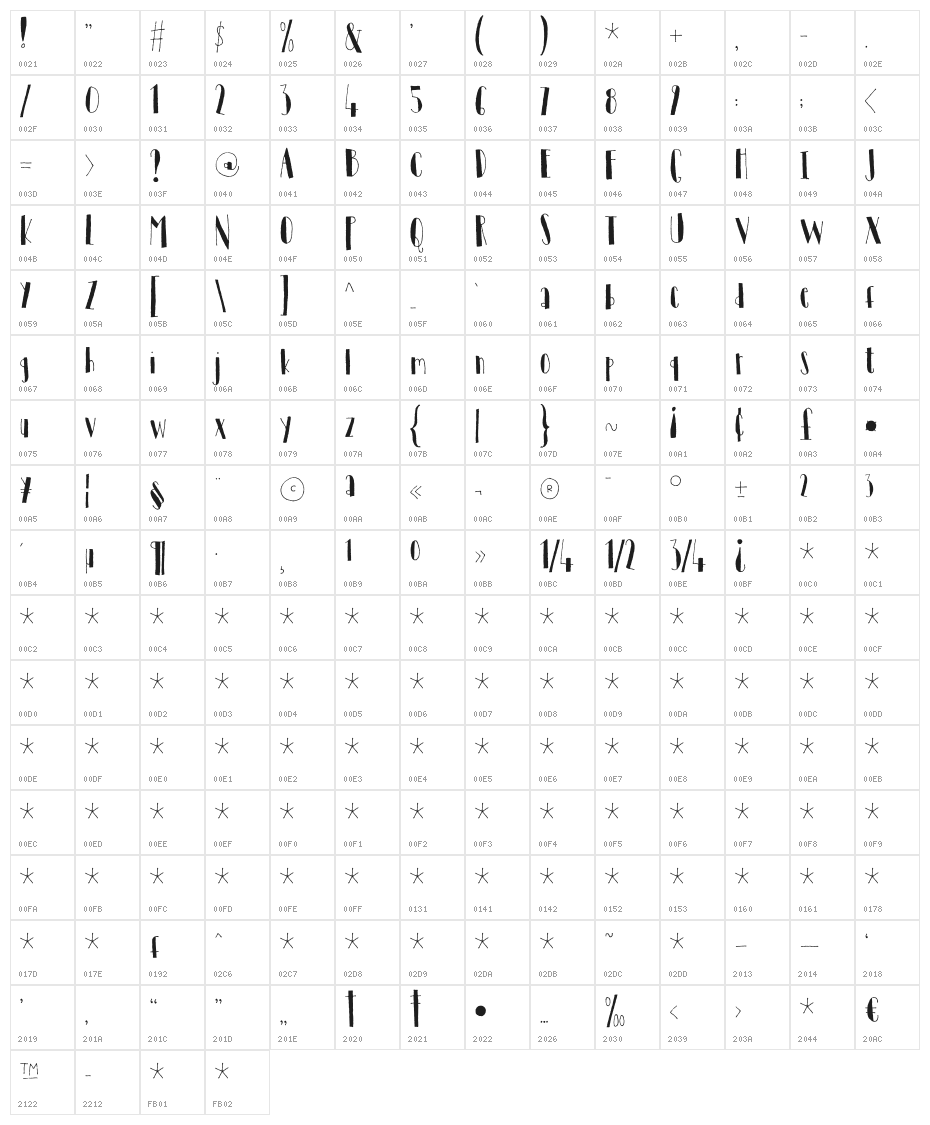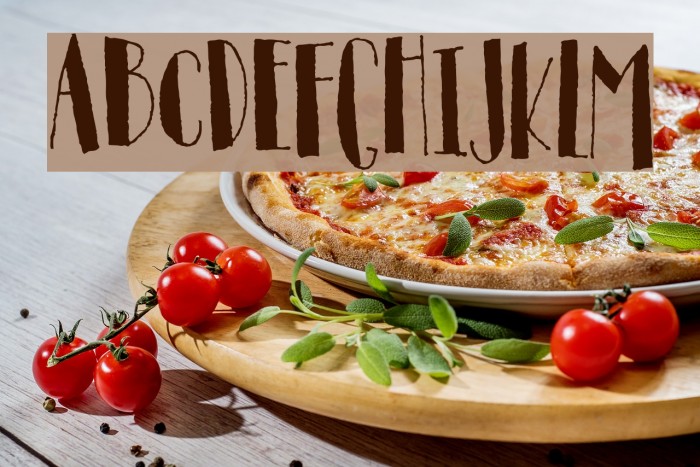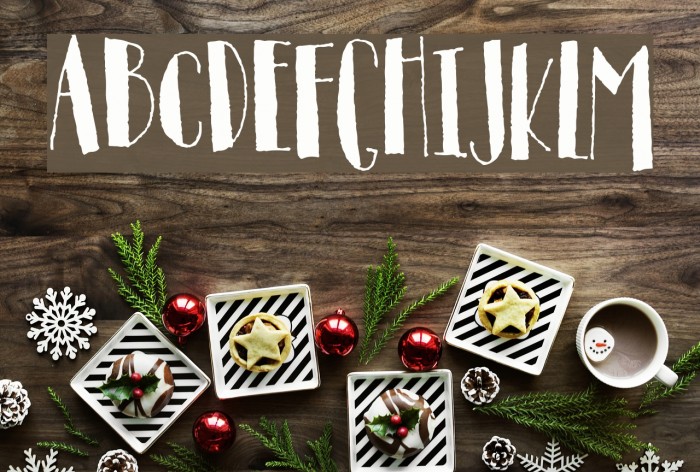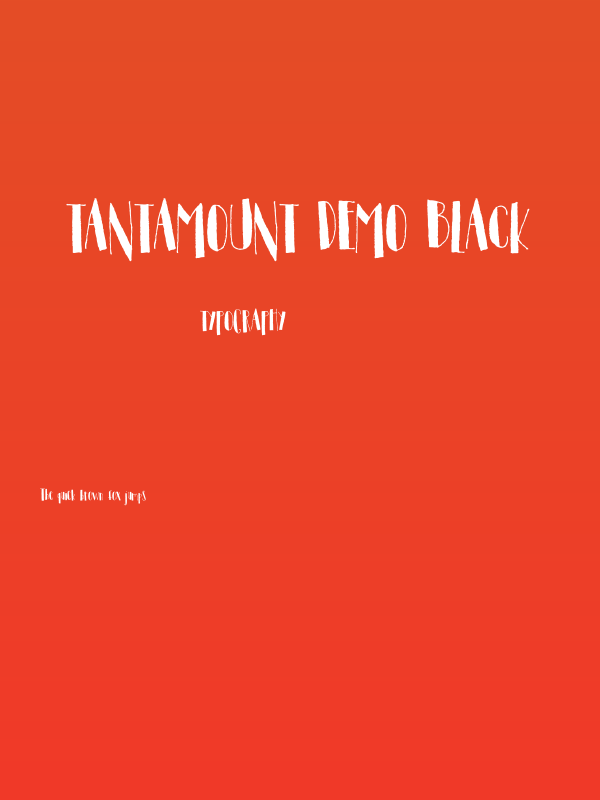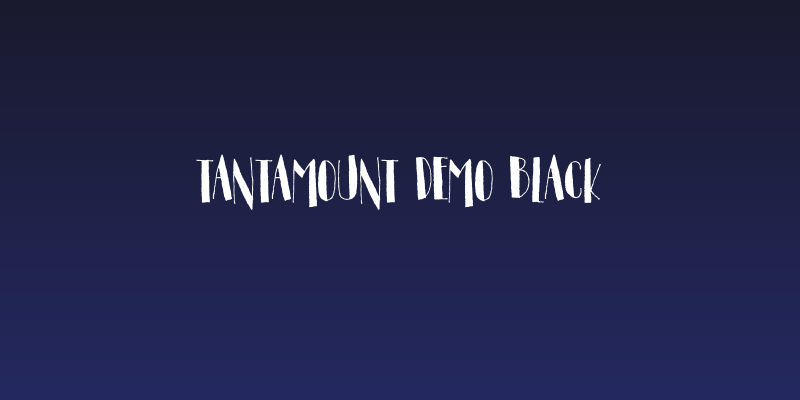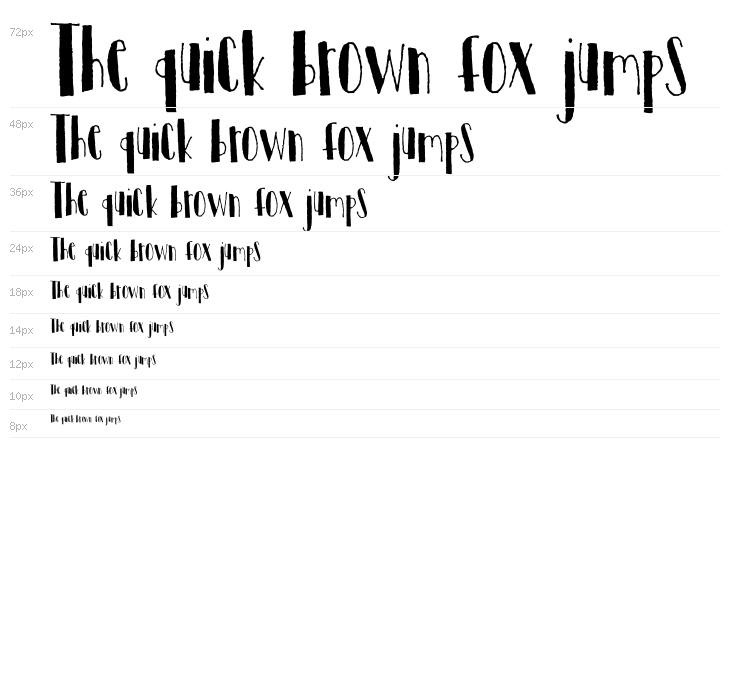
Tantamount DEMO Black Font
Tantamount DEMO Black Description
This font features a playful and artistic style with a hand-drawn appearance. The letters are tall and slightly irregular, giving them a whimsical and unique character. The strokes vary in thickness, adding a dynamic and lively feel to the text. The uppercase letters are bold and prominent, while the lowercase letters maintain a consistent style with a slightly more delicate touch. Numbers and special characters follow the same artistic theme, making the font versatile for creative projects. Its distinctive style makes it suitable for eye-catching designs.
Proposed ProjectsIdeal for greeting cards, posters, children's books, and creative branding projects.